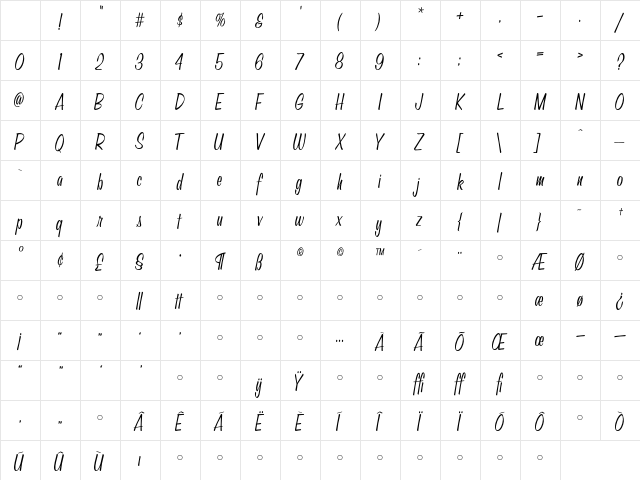
TikiHoliday Regular
Complete TikiHoliday Regular glyph index. Displaying only characters natively supported by TikiHoliday Regular font.
Design Context for TikiHoliday
TikiHoliday is a composed and adaptable typeface that performs quietly and consistently across a wide range of design contexts.